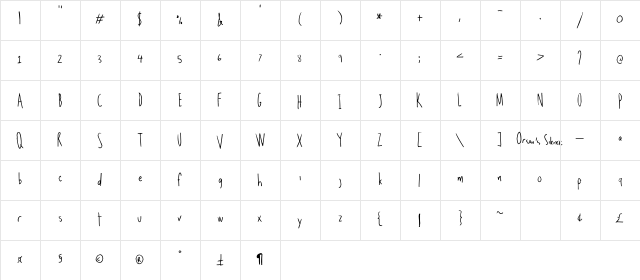
orson's silence Regular Font Preview
orson's silence Regular
Design Context for orson's silence Typeface
orson's silence is a composed and adaptable typeface that performs quietly and consistently across a wide range of design contexts.